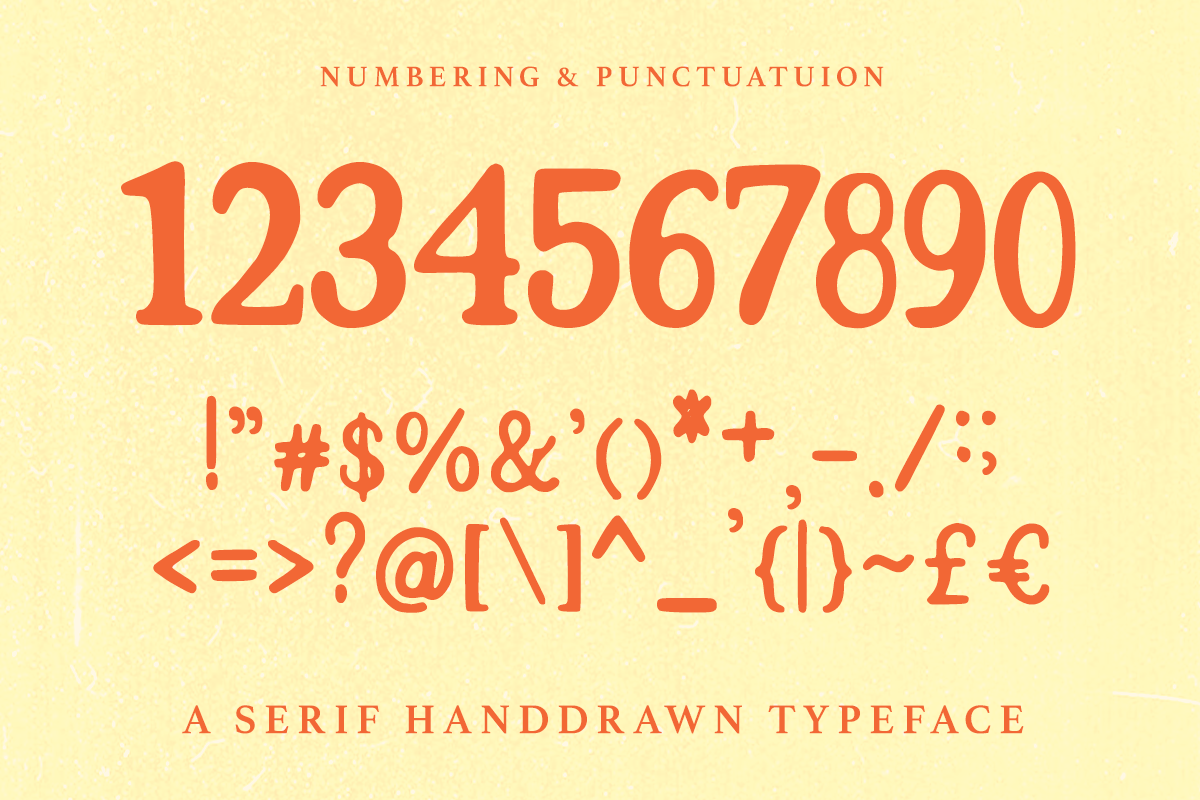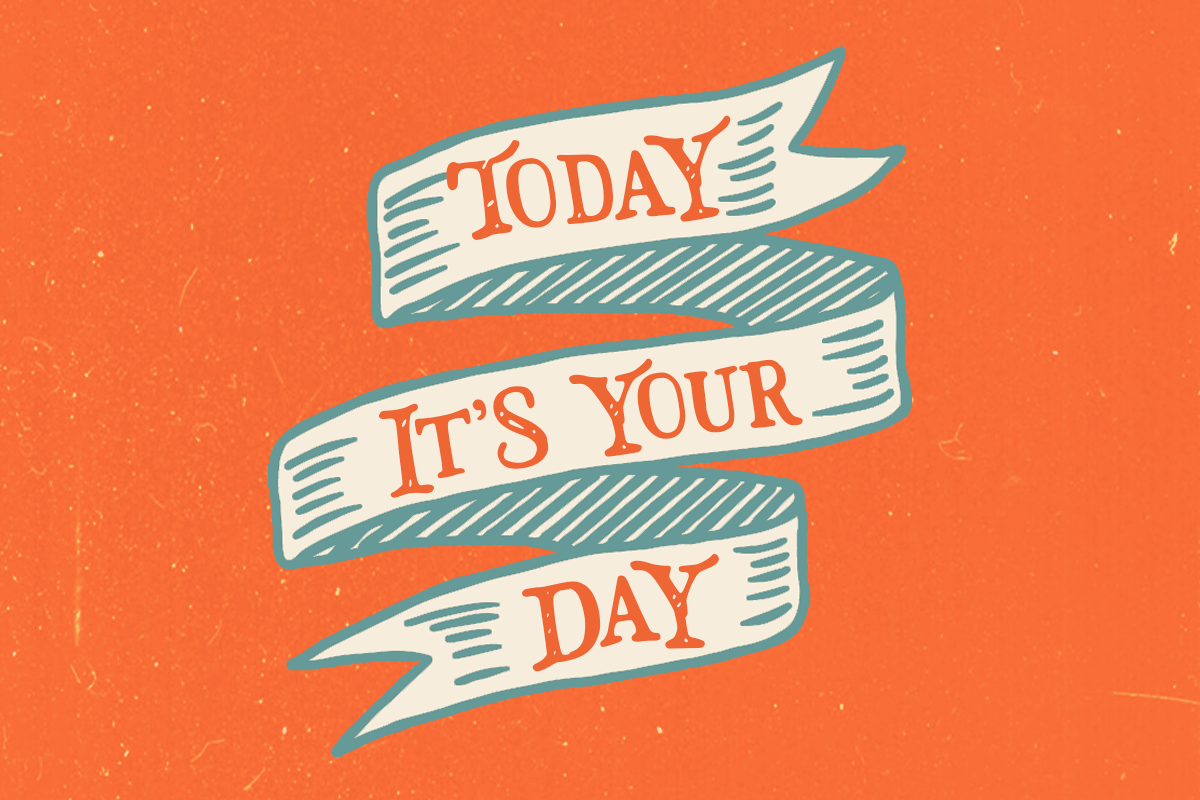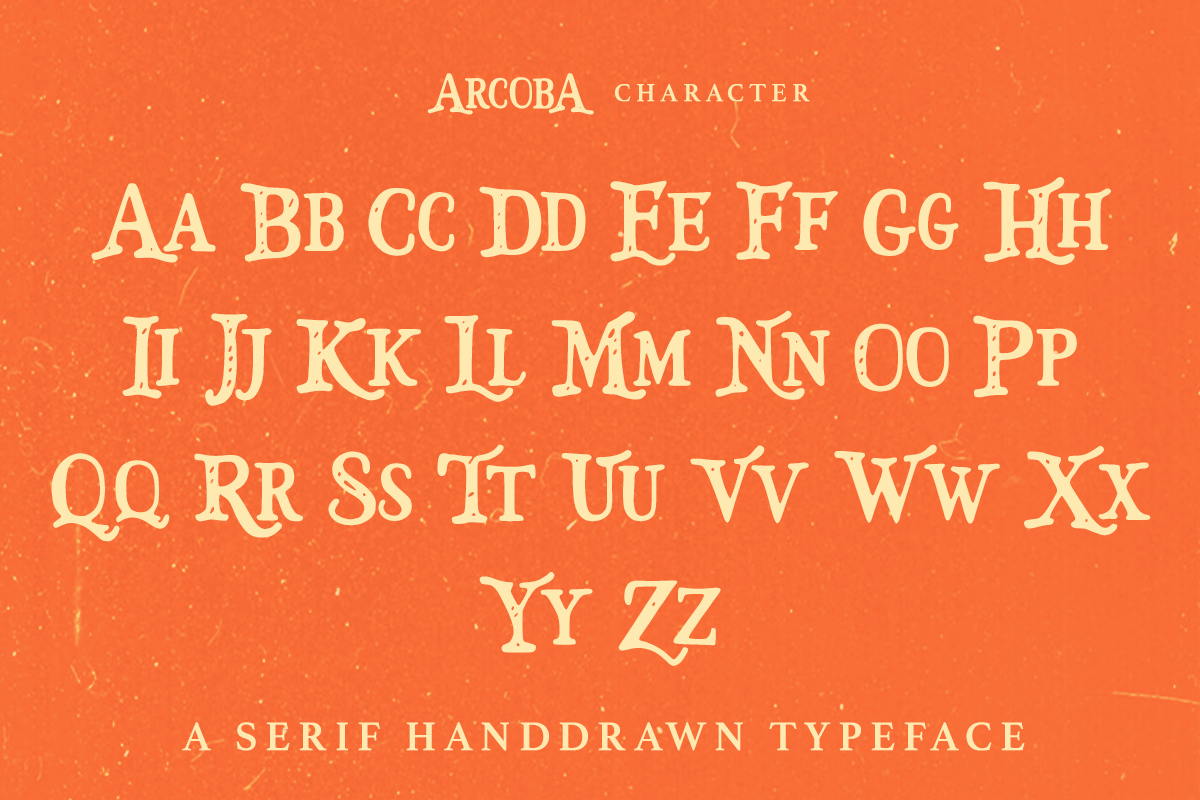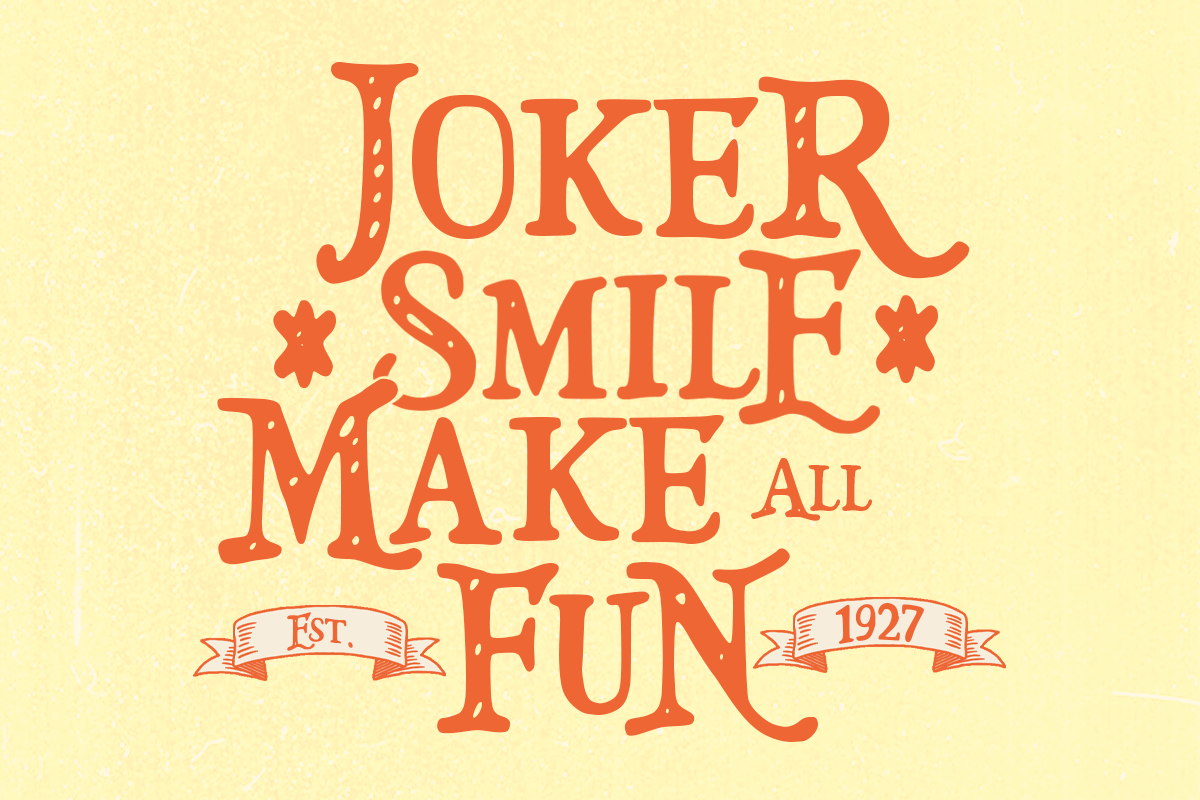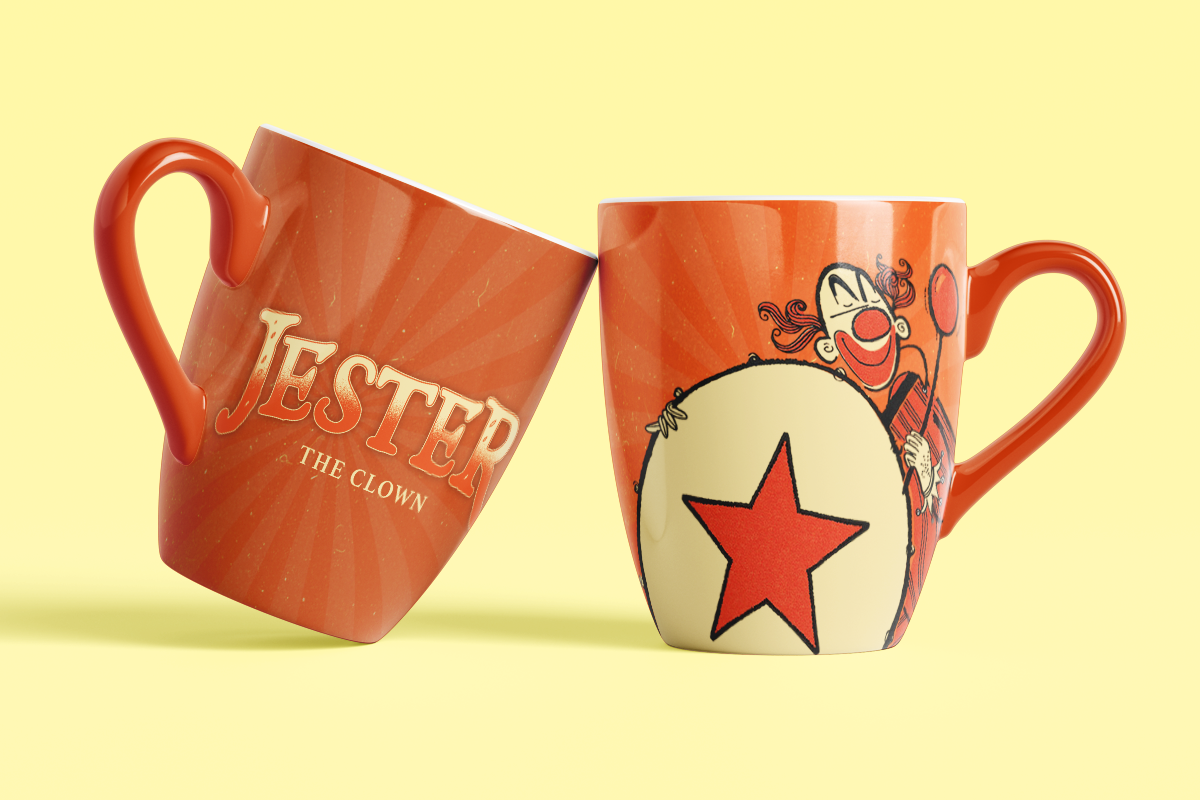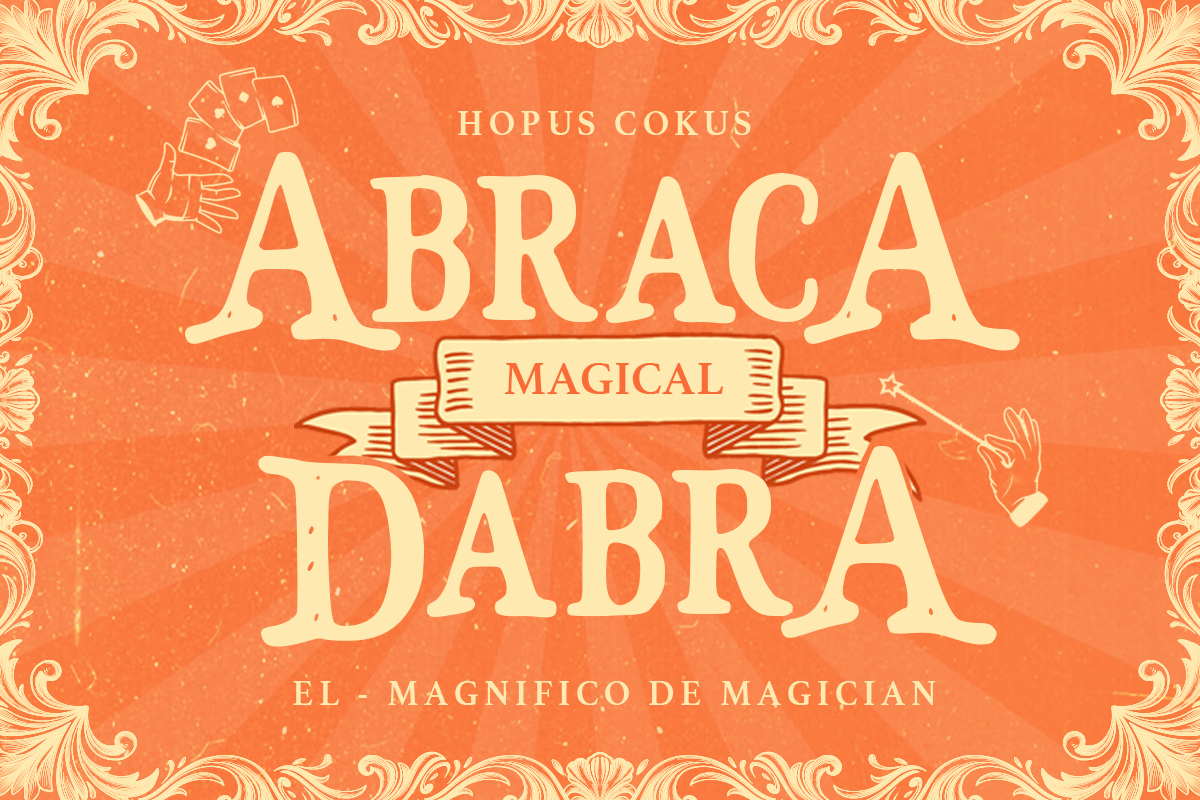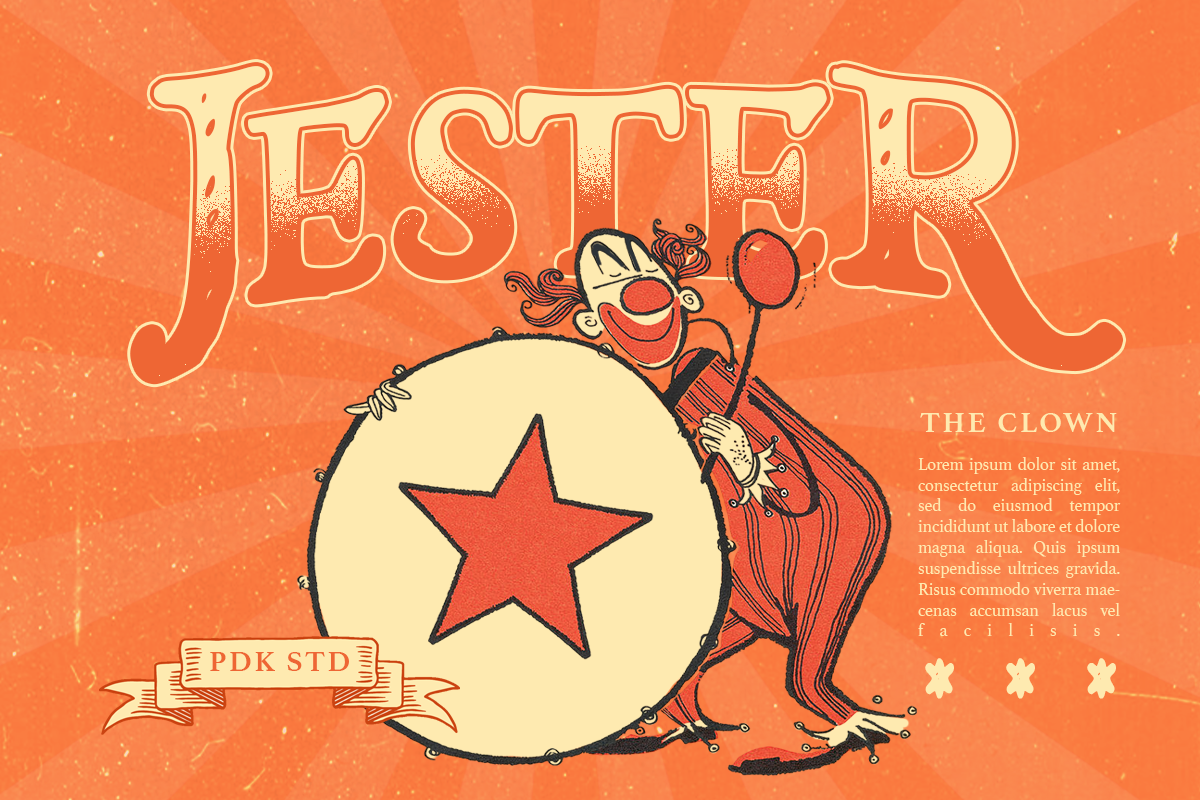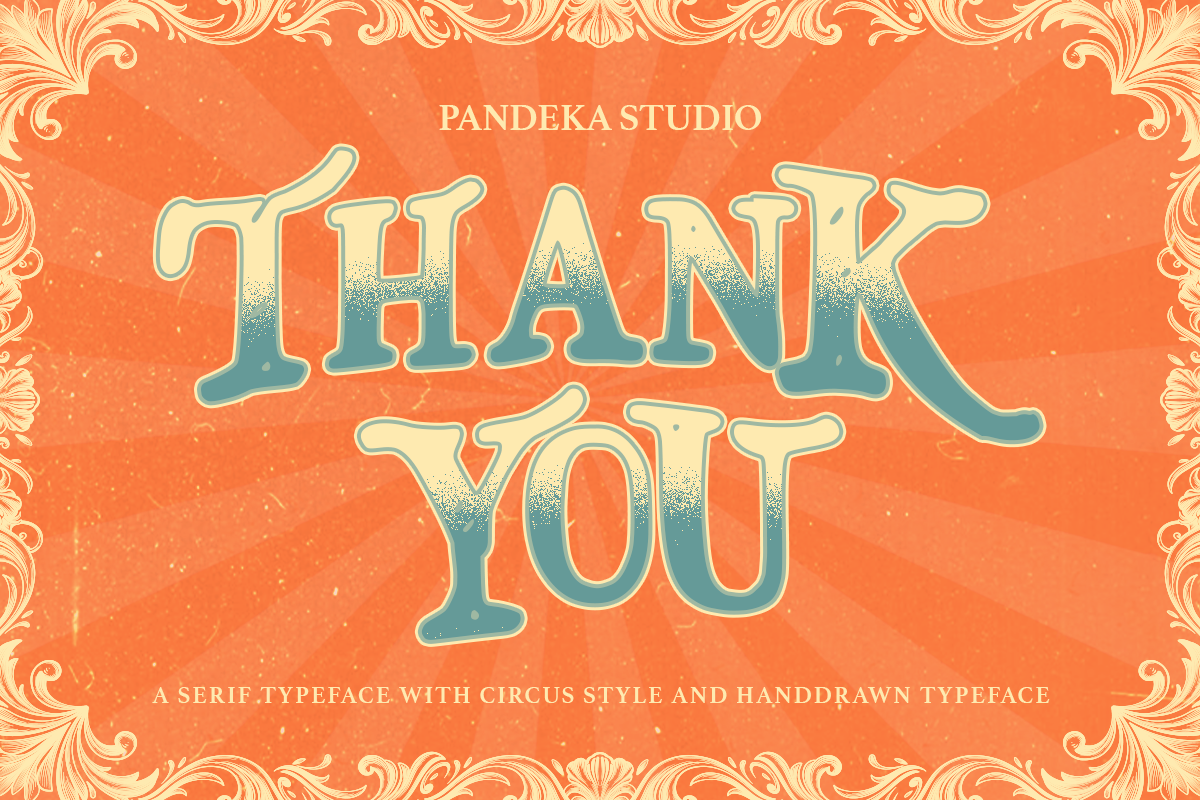
Arcoba - Vintage Circus Display
Arcoba is a whimsical serif display typeface with circus flair and handcrafted charm. Inspired by vintage carnival posters and theatrical lettering, Arcoba blends bold outlines, decorative curves, and vibrant personality into a font that feels both nostalgic and magical.
With its strong character and artistic detail, Arcoba is perfect for headlines, posters, packaging, or branding that needs a show-stopping twist. Whether you're designing for performers, events, games, or quirky product lines, Arcoba adds flair, fantasy, and a dash of showbiz to any visual story.
- Full Character Set: Uppercase, lowercase, numbers, symbols, and punctuation